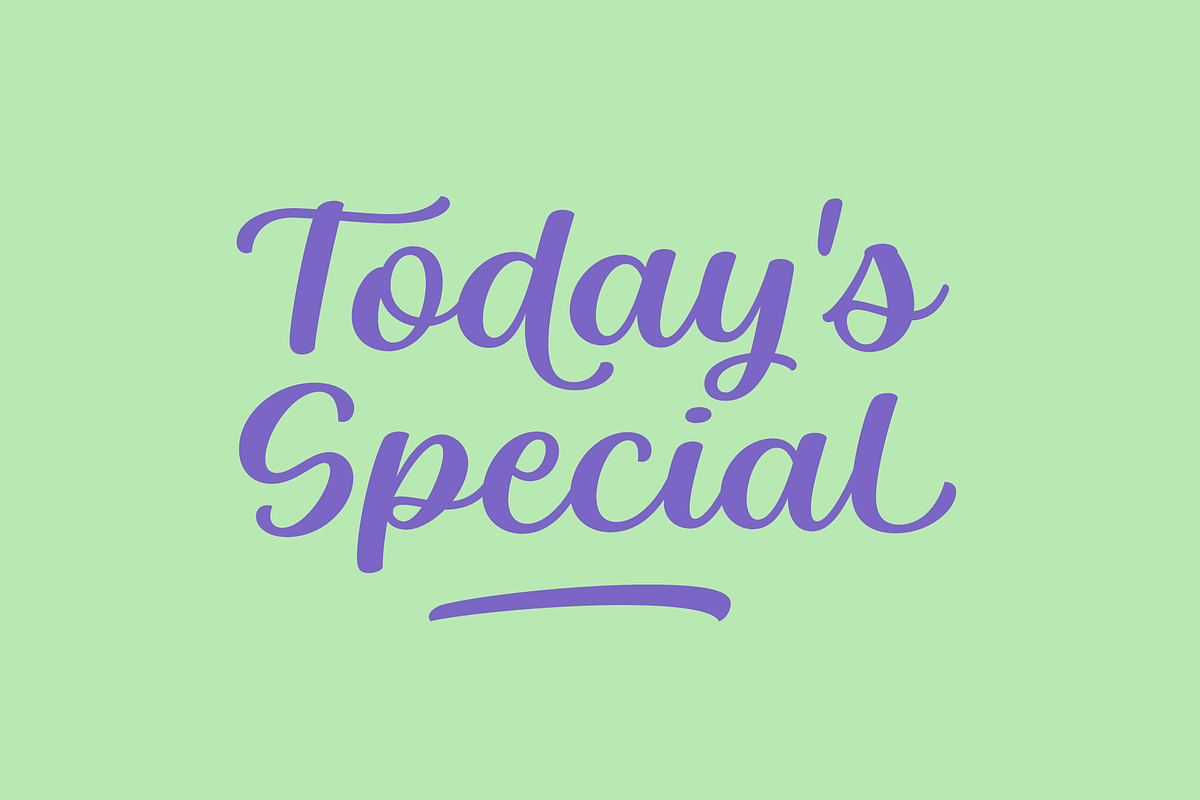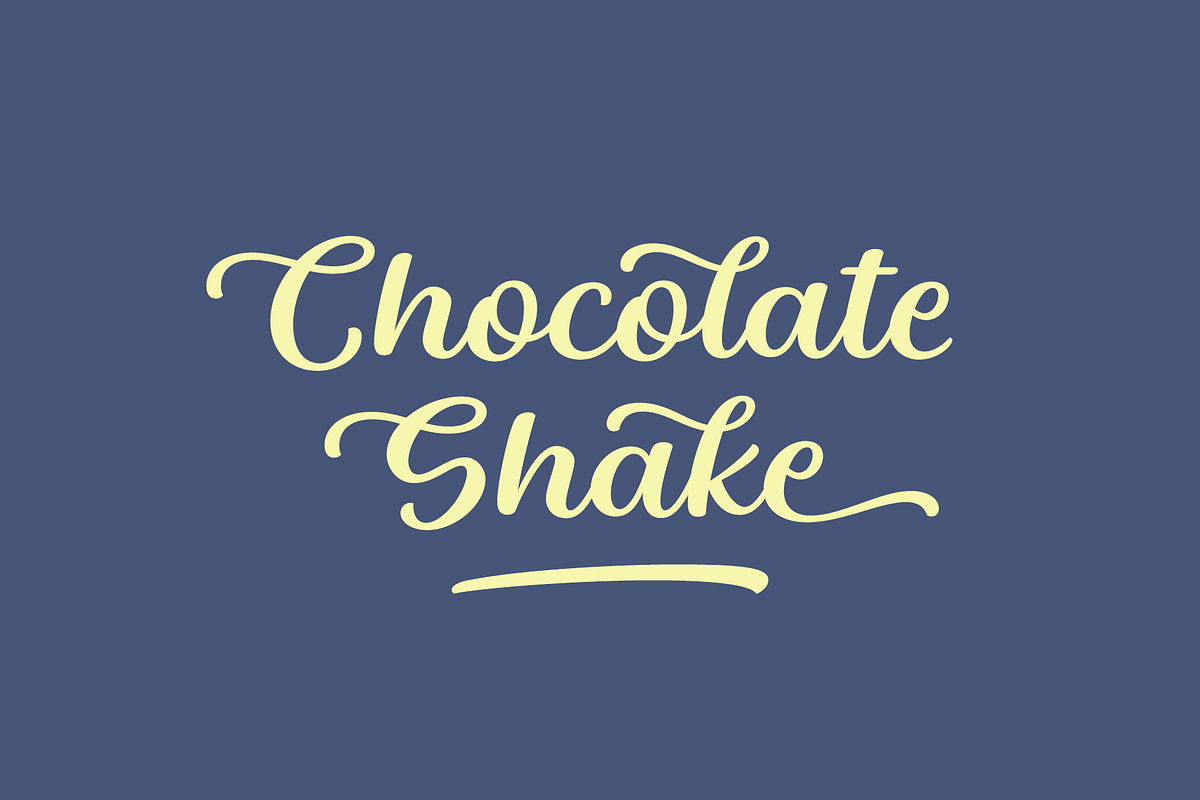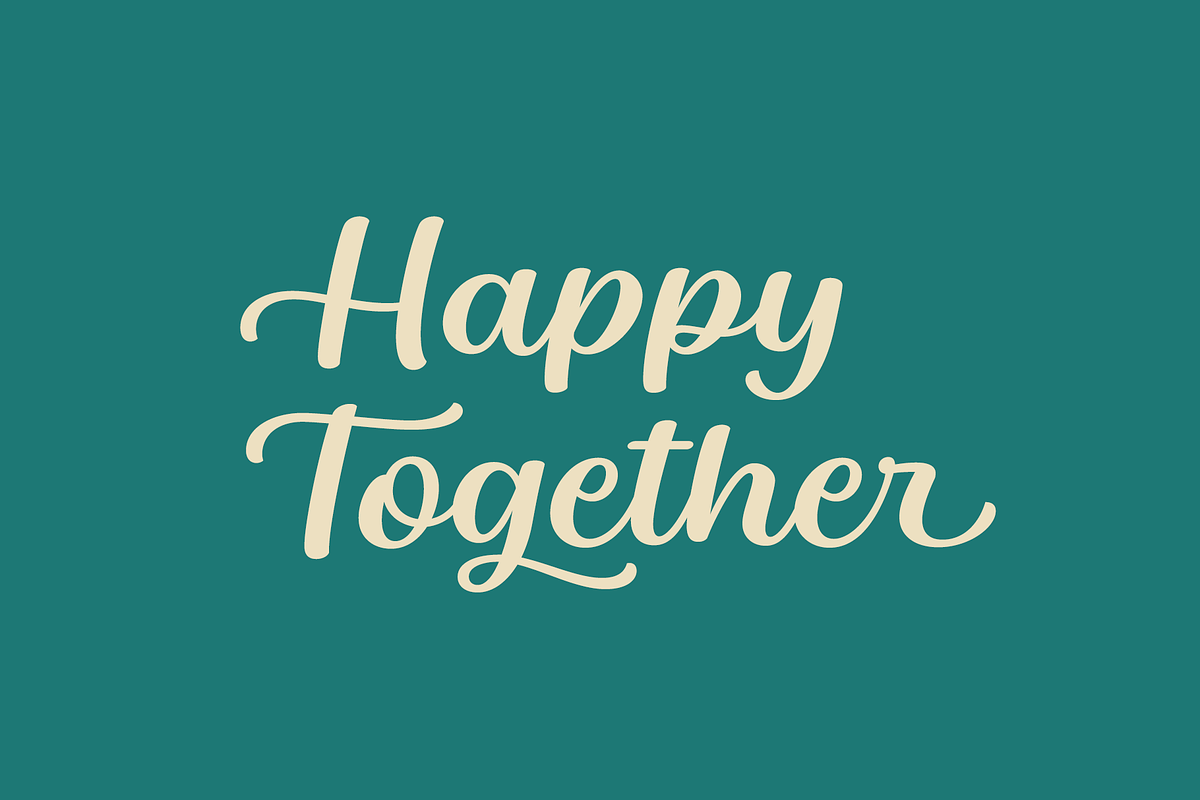
Baguet Script Font
Baguet Script is a modern brush script font. The letters have soft terminals and slight bounce. It has two sets of upper case letters, one is more simple and the other is flashier. It has also three different types of matching initial and end swashes for lowercase letters and multiple options for ascenders and descenders. So if you are looking for soft, friendly and modern script with lots of options and versatility check Baguet Script.